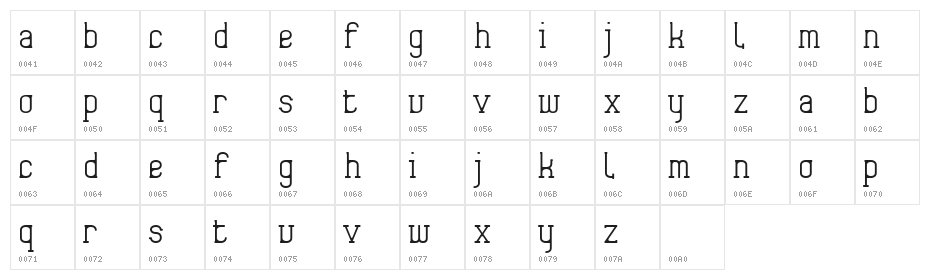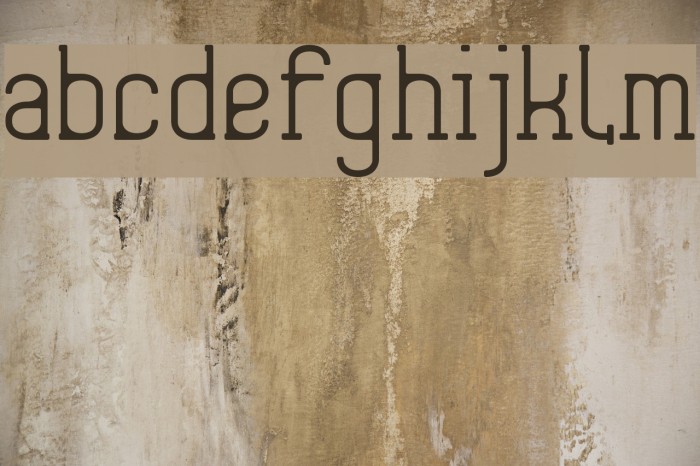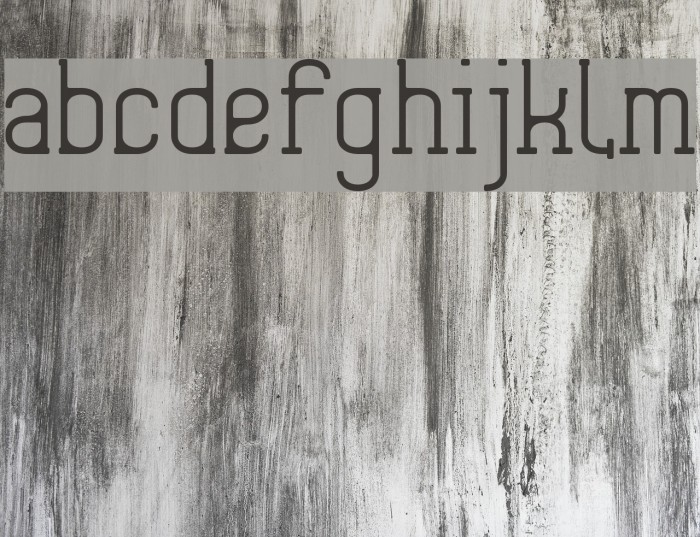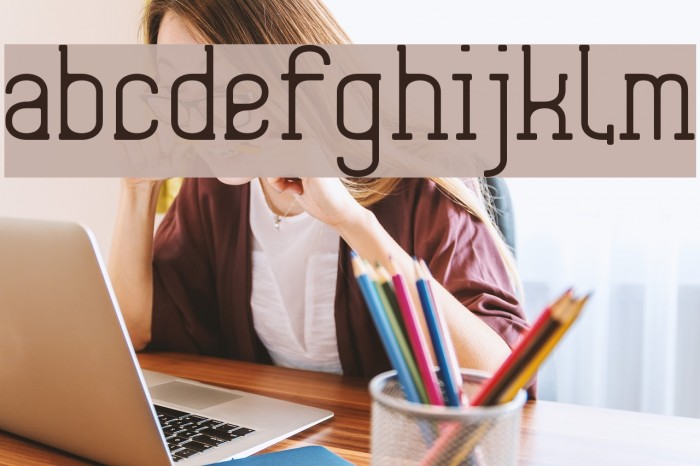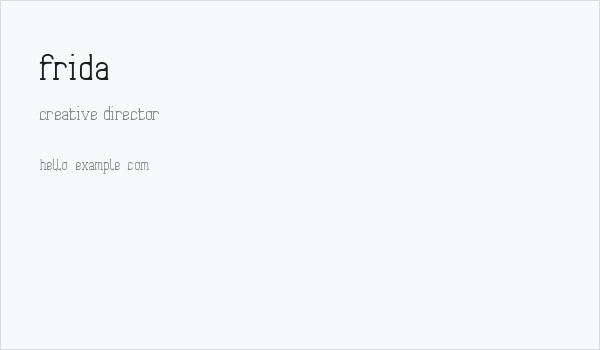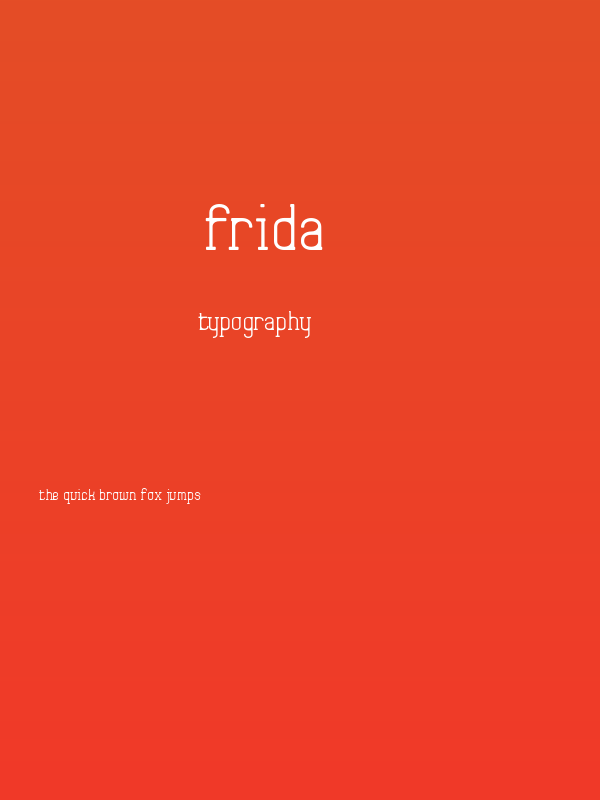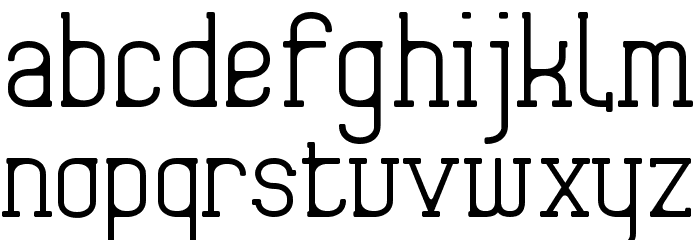
Frida01 Font
Frida01 Description
This font features a unique blend of modern and vintage elements, characterized by its monospaced design. Each character maintains a consistent width, providing a clean and organized appearance. The letters have a slightly rounded finish, adding a touch of softness to the otherwise structured form. The font's geometric shapes and uniformity make it highly legible, even at smaller sizes. Its distinct style is both functional and aesthetically pleasing, making it suitable for a variety of design applications. The consistent stroke weight across all characters ensures a harmonious look, while the subtle curves and straight lines create a balanced and professional appearance.
| Overall Style | Modern, Vintage |
| Use Case | Coding, Technical documentation, Retro designs |
| Proposed Projects | Ideal for coding environments, technical documentation, retro-themed designs, and branding projects that require a clean and structured look. |